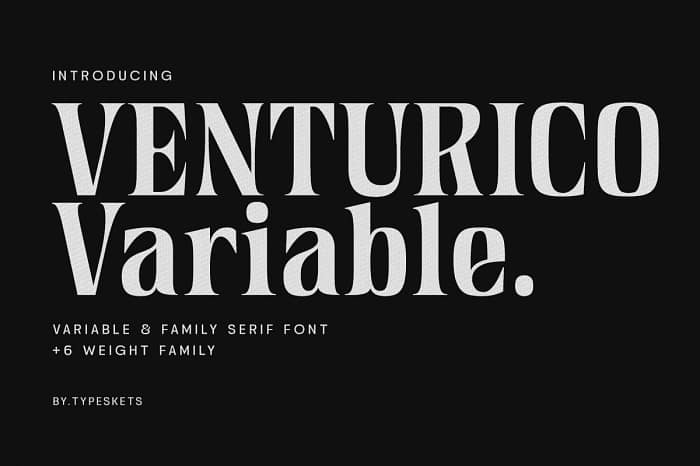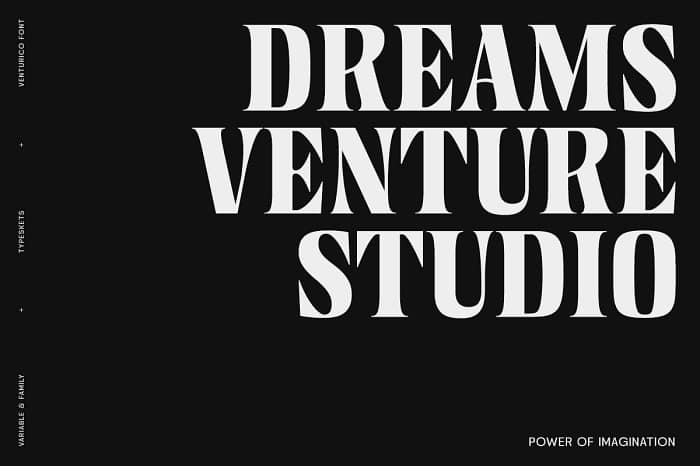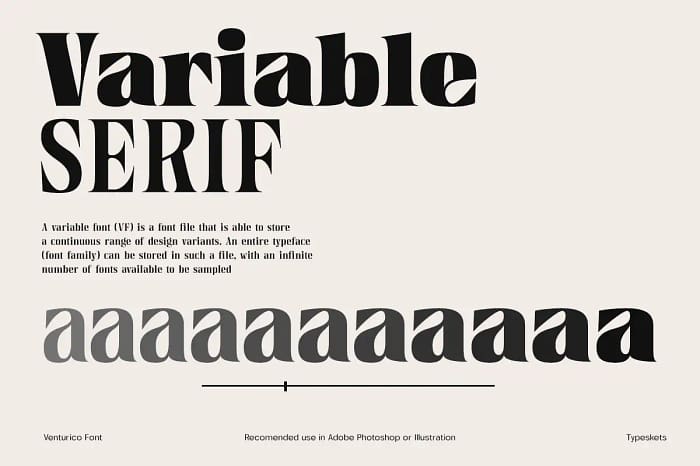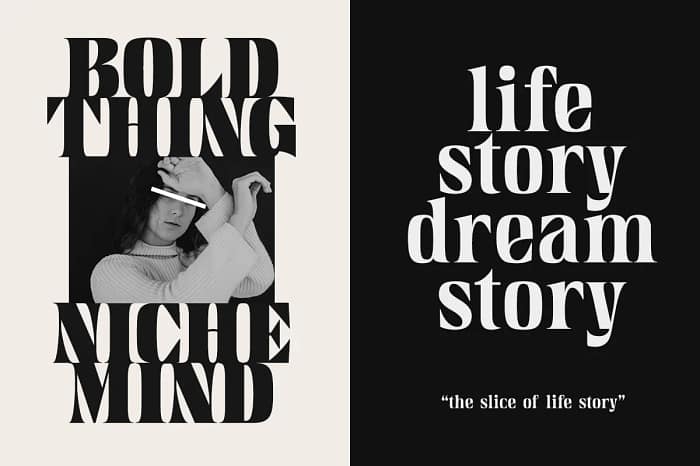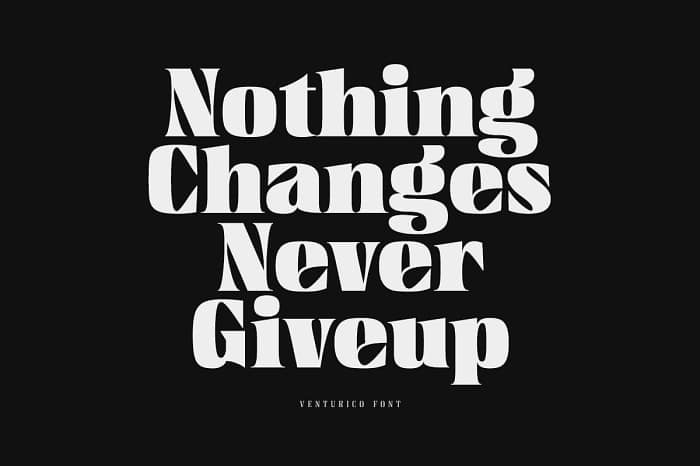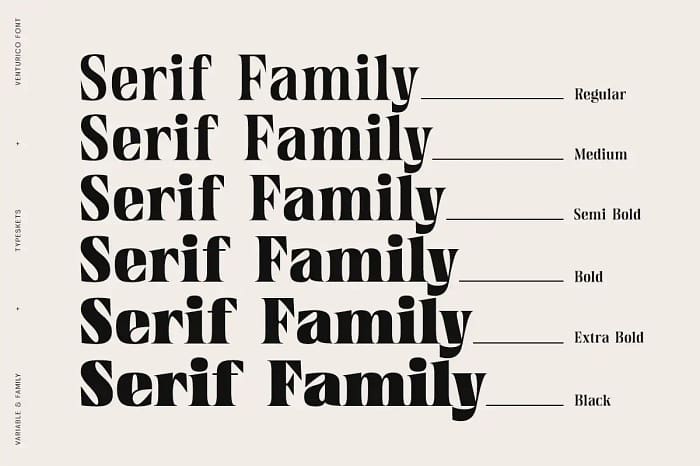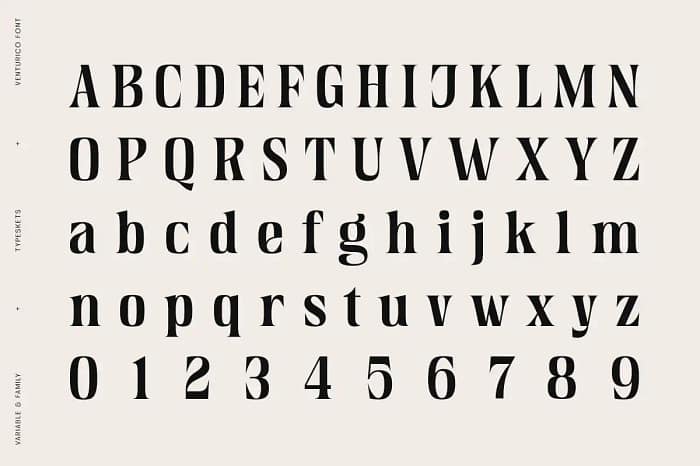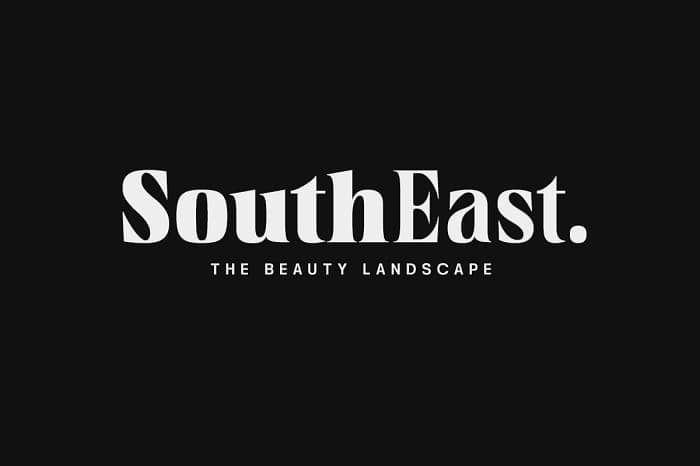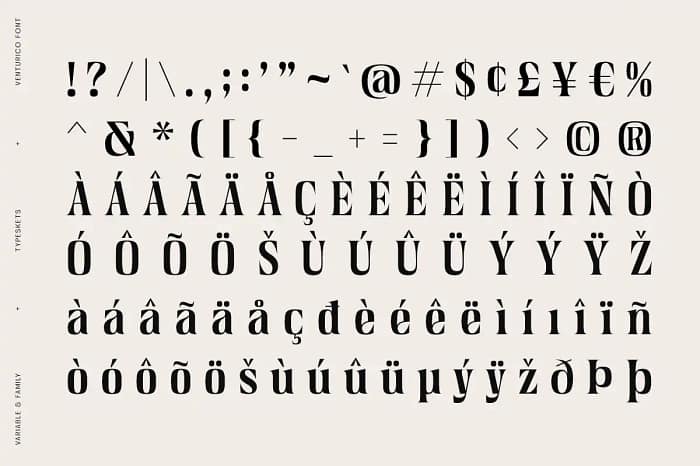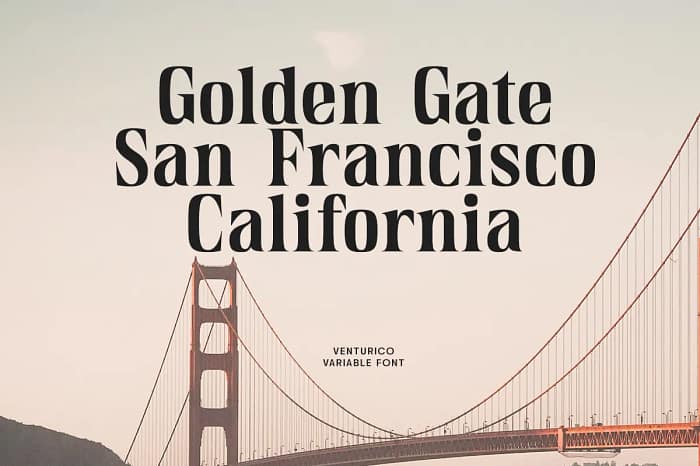
VENTURICO
venturico is a variable serif font and font family category that has 6 weights, taking the classic side of serif fonts that look elegant and have unique characters, of course this font is very suitable for various designs such as posters, headlines, covers, typography, and many more others, it looks like maybe you can make this font as one of the font collections on your computer